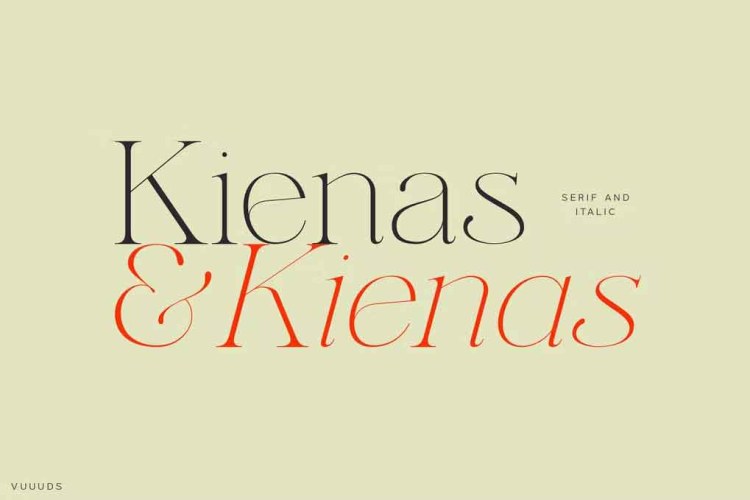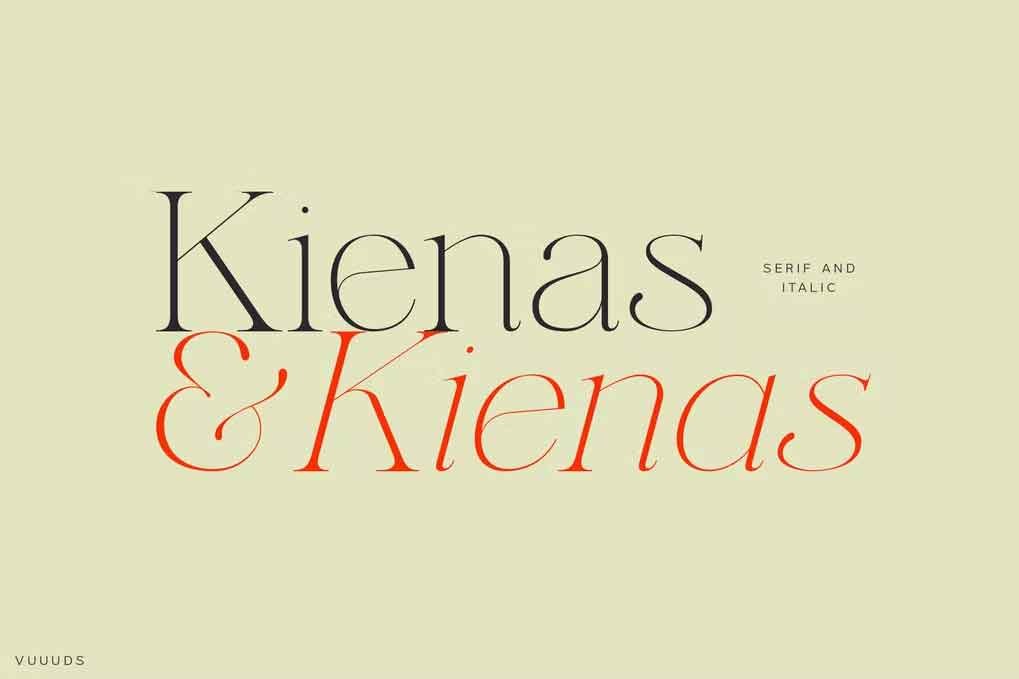
Kienas Font
Introducing Kienas Font!
Kienas is modern serif font, regular and italic style. every single letters have been carefully crafted.
Where Kienas Font works best
Reports, white papers and book interiors hold the eye longer when the text face has real serifs; Kienas Font keeps that rhythm without looking old-fashioned.
Food, spirits and cosmetics brands lean on serif wordmarks to suggest age and care. Kienas Font gives that signal at wordmark size.
Set Kienas Font for the body of an award or a diploma and keep the recipient name in a script; the pairing is what makes a document feel official.
What kind of work does Kienas Font suit?
It sits in the Serif Fonts group and reads as modern, professional, serif, serif fonts. That makes it a candidate wherever those qualities help: headings, packaging, social graphics and brand work. Set it at the size you plan to use before deciding.